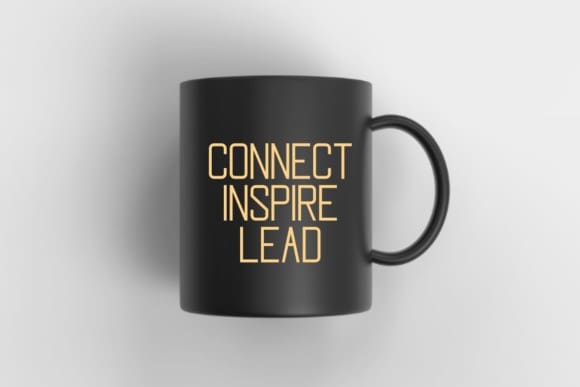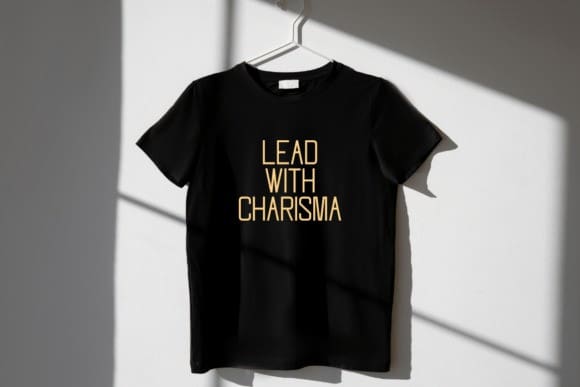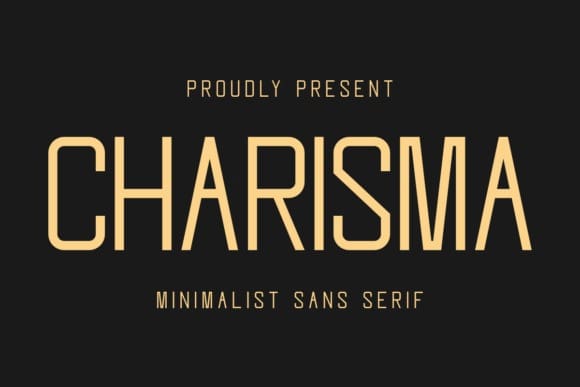
Charisma Font
Charisma Font is a minimalist sans serif font with a delicate monoline design. Its clean lines and subtle curves create a sophisticated and timeless aesthetic. Perfect for creating elegant and understated designs for mockups, wall art, and planners. And also suitable for various topics such as Christmas, Valentine, Easter, Mardi Gras, Grinch, Laser Cut, , Tumbler, Teacher, Heart, Sublimation, Canva, and Stickers.